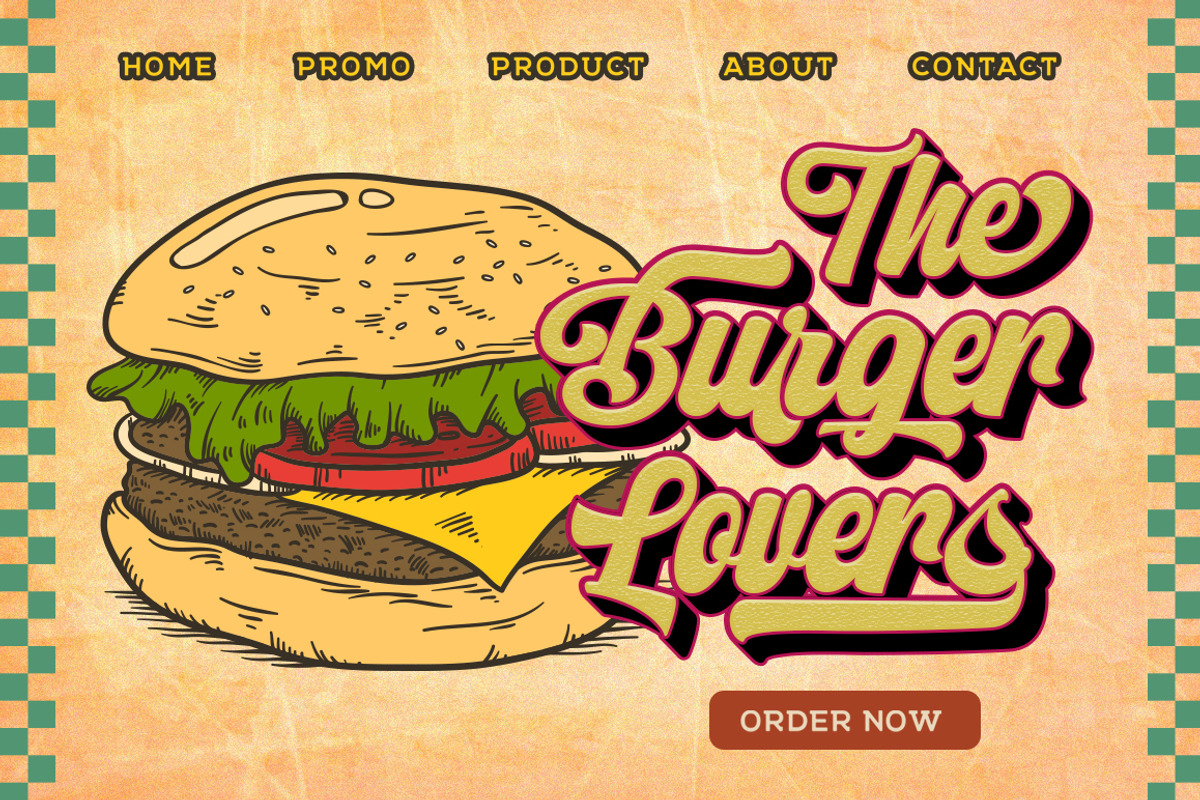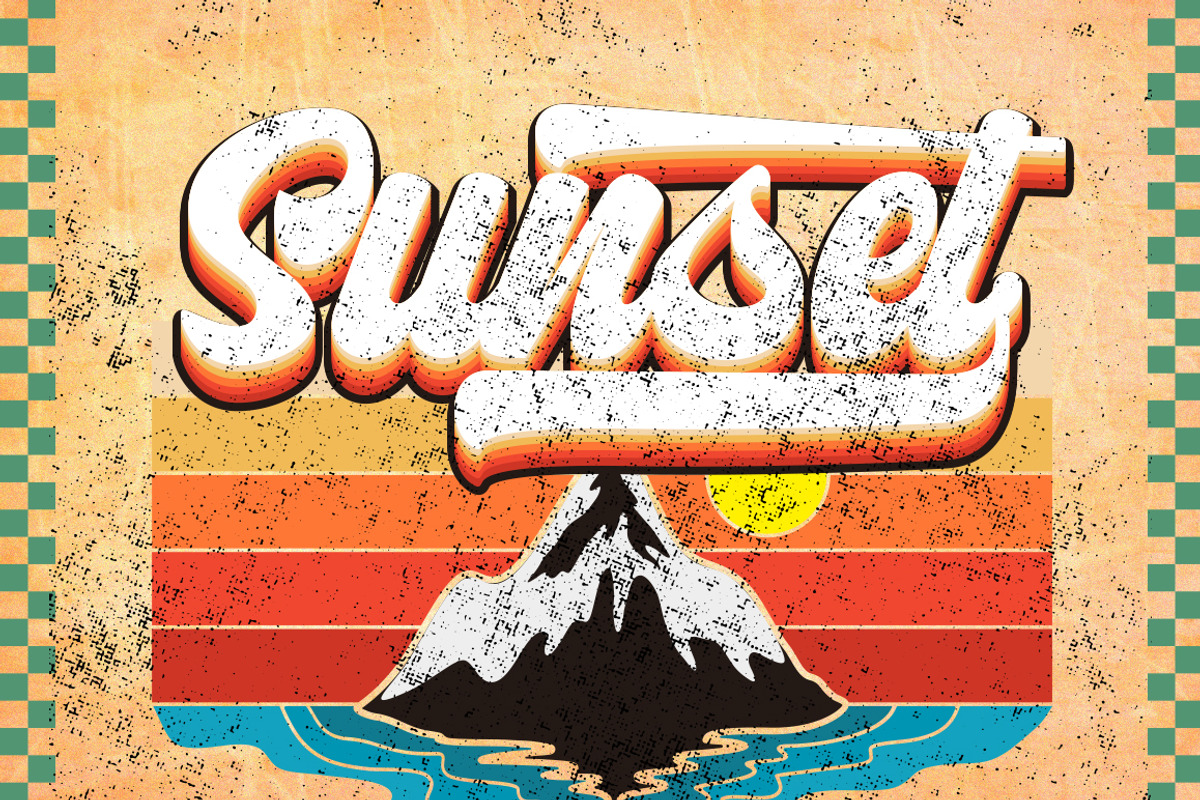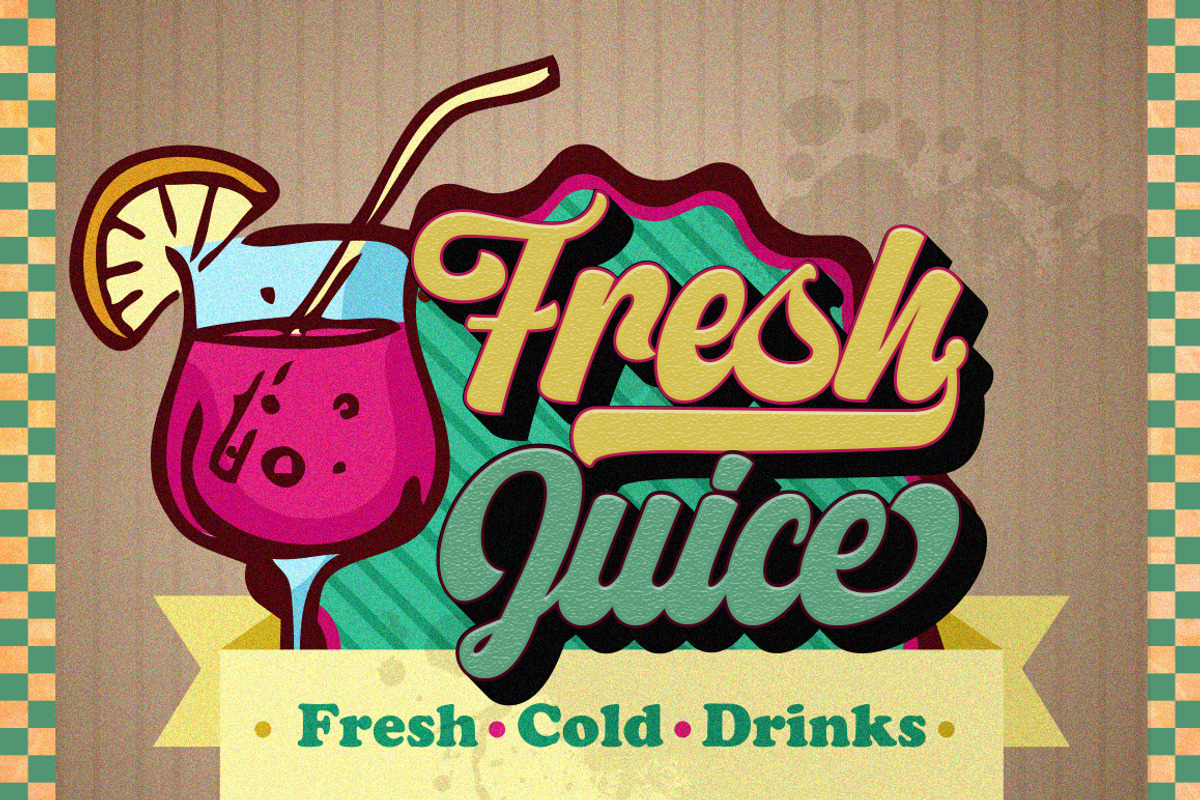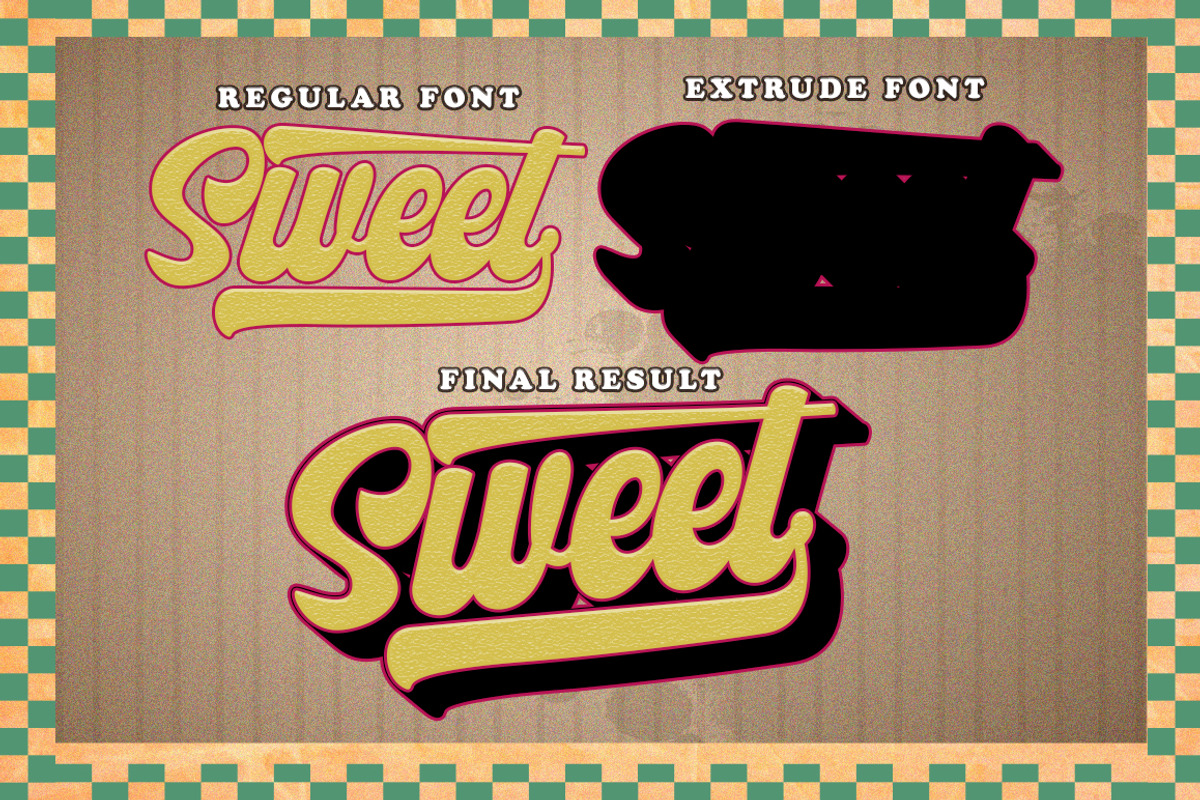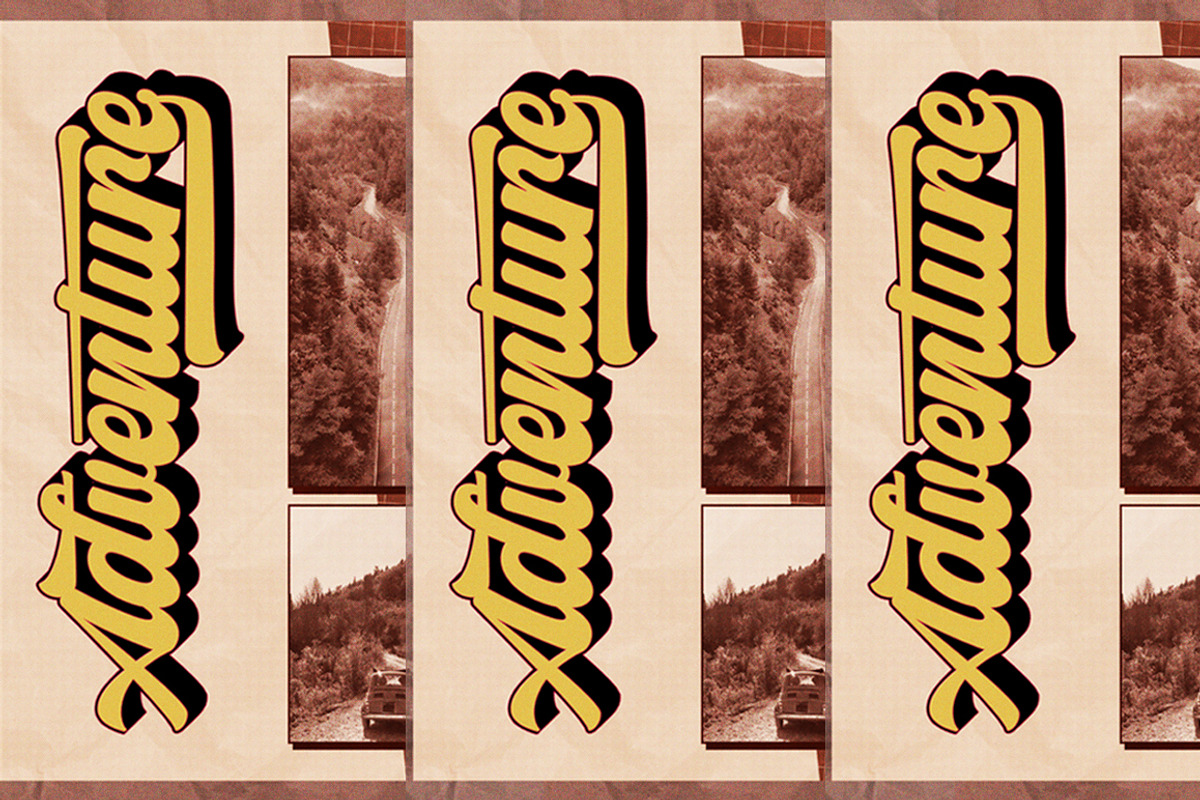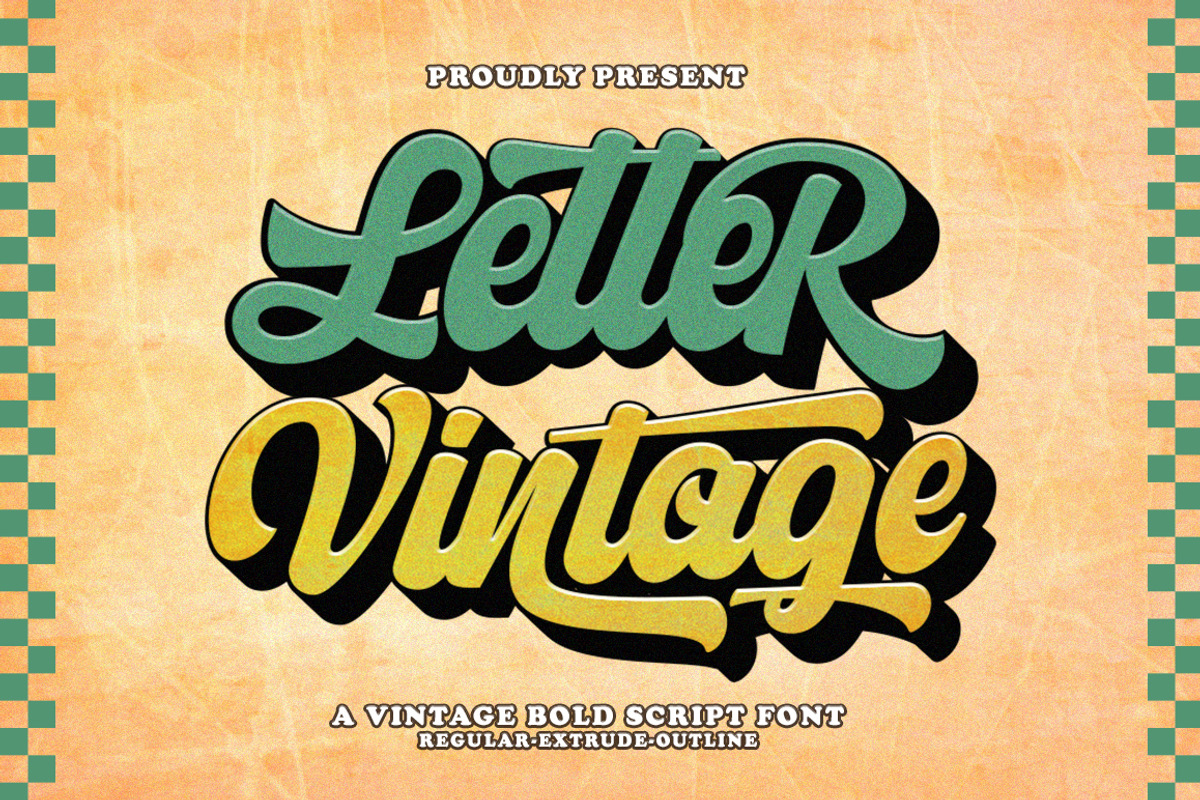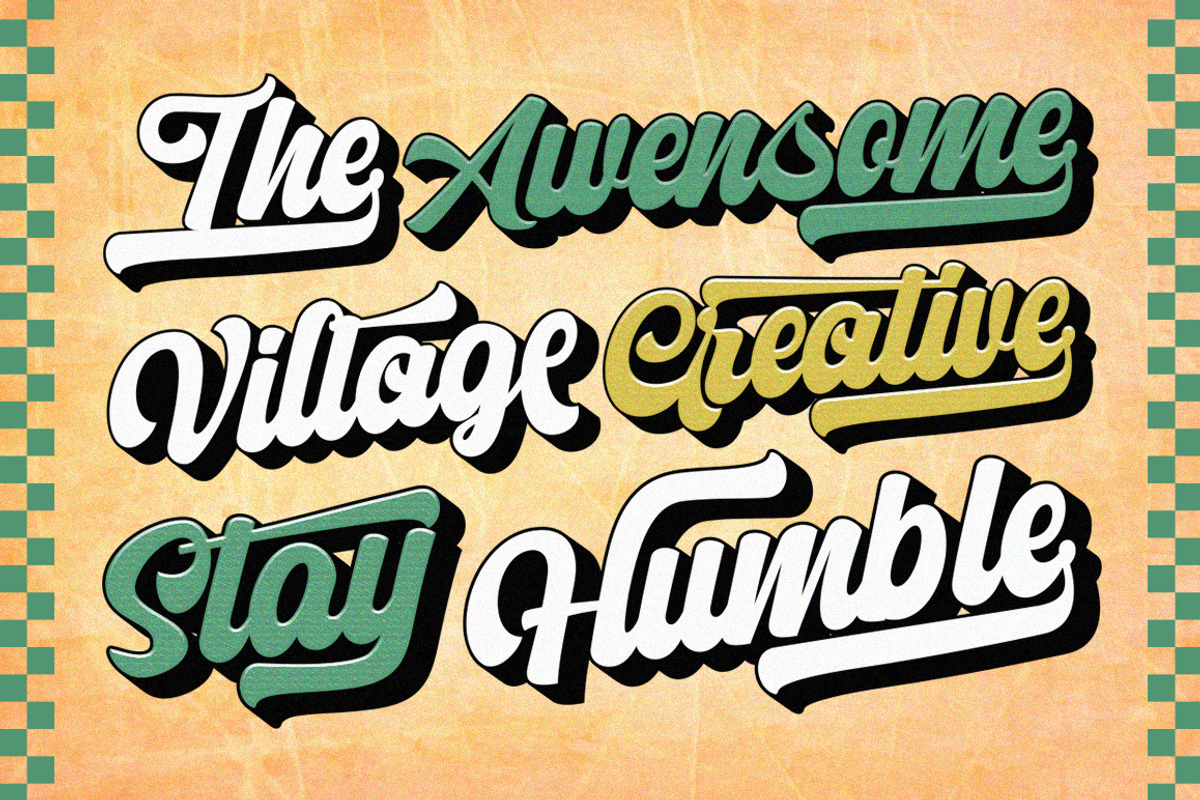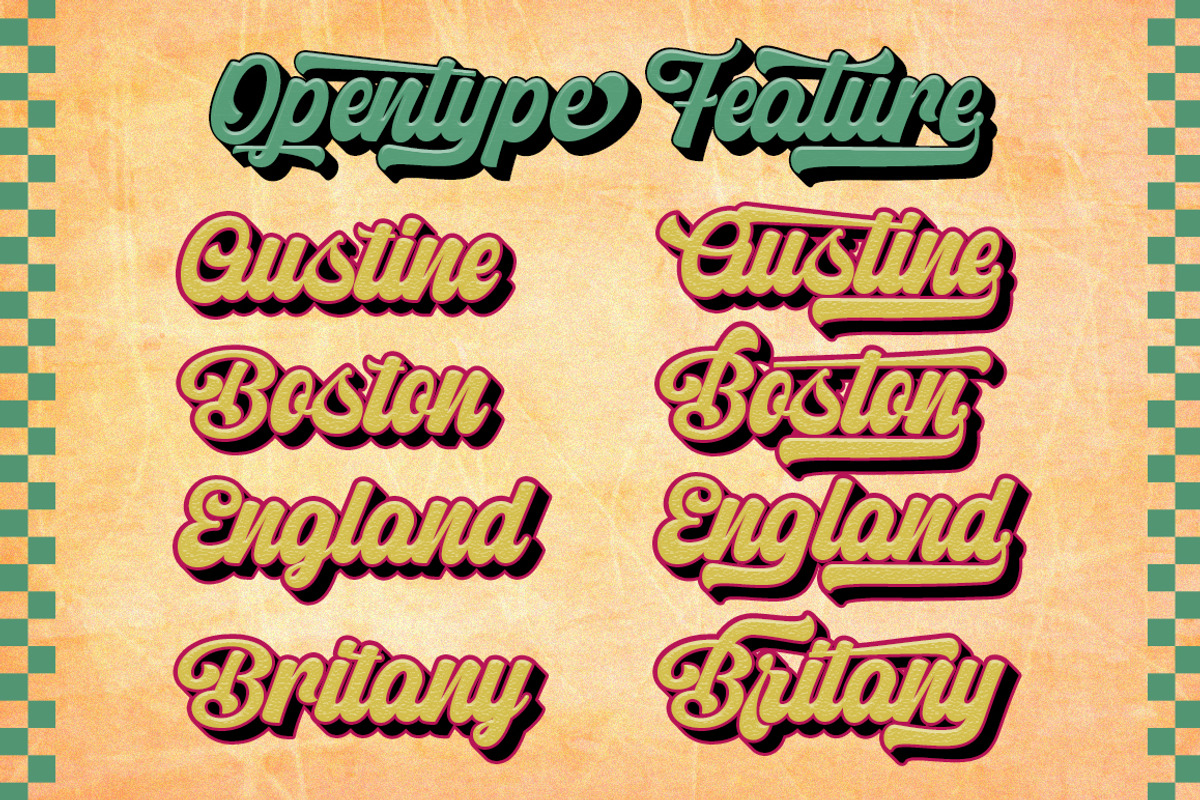
Letter Vintage
Letter Vintage Script is a vintage retro font. Inspired by retro typography and lettering from the 70s and 80s combined with a bold typographic style. This font is perfect for vintage and retro designs, badges, logos, t-shirts, posters, branding, packaging, signs, book covers and more!